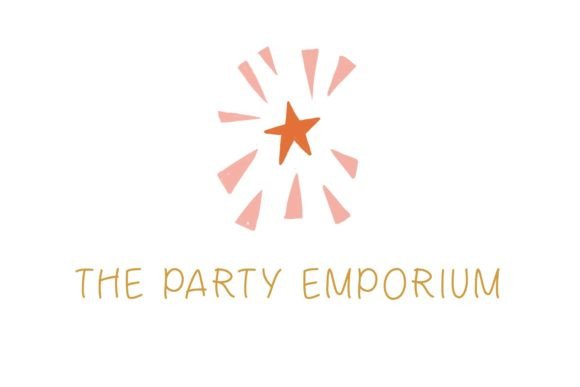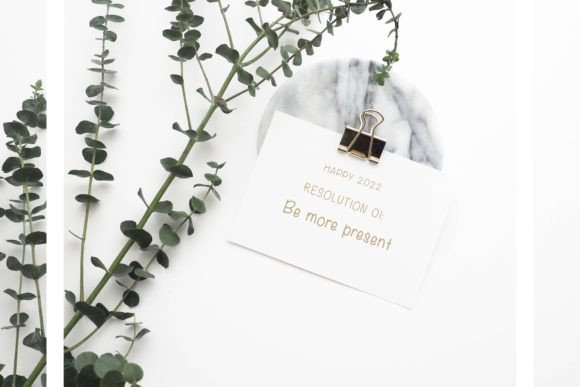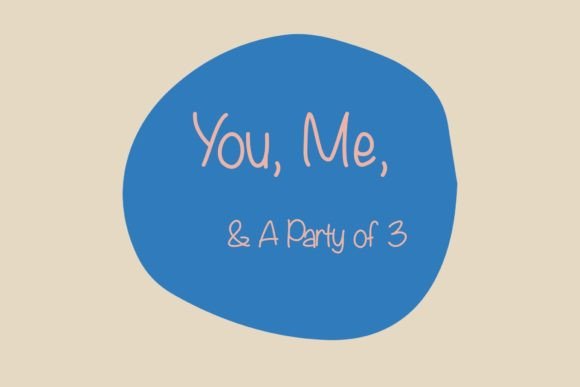
Discover the Charm of Bailey Font: A Hand-Lettering Cute Font for Creative Projects
Are you a designer, crafter, or DIY enthusiast looking for a font that can add a touch of personality to your projects? Look no further than the Bailey Font, a hand-lettering cute font that’s perfect for a wide range of creative applications. In this article, we’ll explore the features and benefits of the Bailey Font, and show you how it can elevate your designs, crafts, and branding projects.
What is Bailey Font?
Bailey Font is a unique, hand-lettered font that’s designed to bring a touch of whimsy and charm to your projects. With its cute and playful style, it’s perfect for creating eye-catching designs that stand out from the crowd. Whether you’re working on a Cricut project, designing a logo or brand identity, or creating decorative items like mugs, pantry labels, or wedding invitations, Bailey Font is the perfect choice.
Features of Bailey Font
- Hand-lettered with love: Bailey Font is carefully crafted with a personal touch, giving it a unique and authentic feel that’s hard to replicate with automated fonts.
- Cute and playful style: The font’s playful and whimsical style makes it perfect for designs that require a touch of personality and charm.
- High-quality design: Bailey Font is designed with high-quality craftsmanship in mind, ensuring that it looks great in any size or format.
- Versatile: This font is suitable for a wide range of creative projects, from digital designs to print materials.
Uses for Bailey Font
Bailey Font is an incredibly versatile font that can be used for a wide range of creative projects, including:
- Cricut projects: Add a personal touch to your Cricut designs with Bailey Font’s unique and playful style.
- Logos and branding: Create a memorable brand identity with Bailey Font’s cute and charming style.
- Design and deco: Use Bailey Font to add a touch of personality to your decorative items, such as mugs, pantry labels, and wedding invitations.
- Stickers and business cards: Stand out from the crowd with Bailey Font’s unique and eye-catching style.
- Greeting cards and posters: Add a touch of whimsy and charm to your greeting cards and posters with Bailey Font.
- Social media and planner prints: Use Bailey Font to create engaging and eye-catching social media graphics and planner prints.
Why Choose Bailey Font?
With so many fonts available, why choose Bailey Font? Here are just a few reasons why designers and crafters love this font:
- Unique and authentic: Bailey Font’s hand-lettered style gives it a unique and authentic feel that’s hard to replicate with automated fonts.
- High-quality design: Bailey Font is designed with high-quality craftsmanship in mind, ensuring that it looks great in any size or format.
- Versatile: This font is suitable for a wide range of creative projects, from digital designs to print materials.
If you’re looking for a font that can add a touch of personality and charm to your designs, crafts, and branding projects, look no further than Bailey Font. With its unique, hand-lettered style and versatile uses, it’s the perfect choice for designers and crafters who want to create eye-catching and memorable designs. Whether you’re working on a Cricut project, designing a logo or brand identity, or creating decorative items, Bailey Font is the perfect choice.